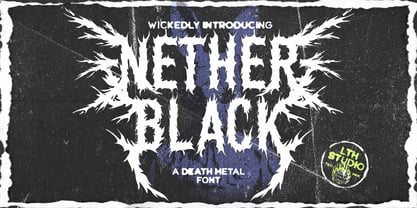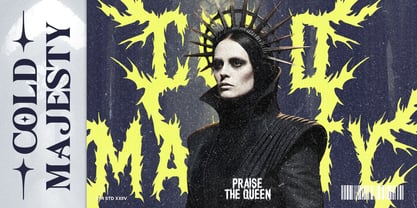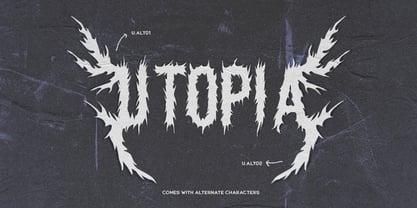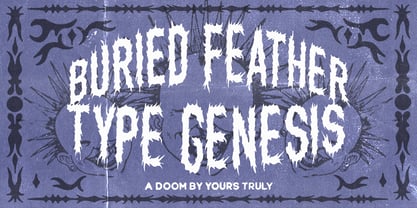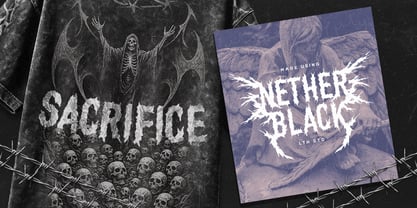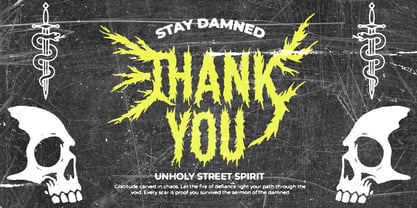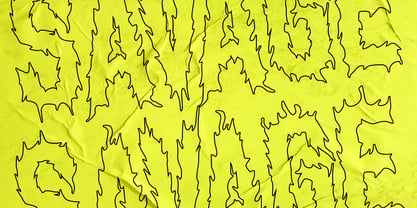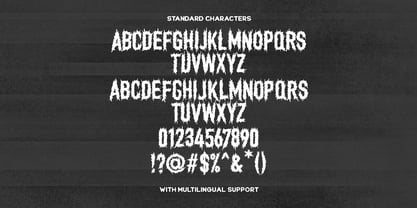
Nether Black
by Letterhend
The Nether Black Font Family was designed by Hendry Juanda and published by Letterhend. Nether Black contains 1 styles. More about this family
Nether Black is a fierce and chaotic death metal font designed to embody raw aggression and dark energy. Its jagged, thorn-like letterforms scream rebellion and intensity, making it perfect for album covers, posters, logos, and horror-themed visuals. The distressed texture and sharp edges evoke a sinister underground vibe, capturing the essence of extreme music and unfiltered artistic expression. Features : Uppercase & lowercase Numbers and punctuation Alternates & Ligatures Multilingual Support PUA encoded
Designers: Hendry Juanda
Foundry: Letterhend